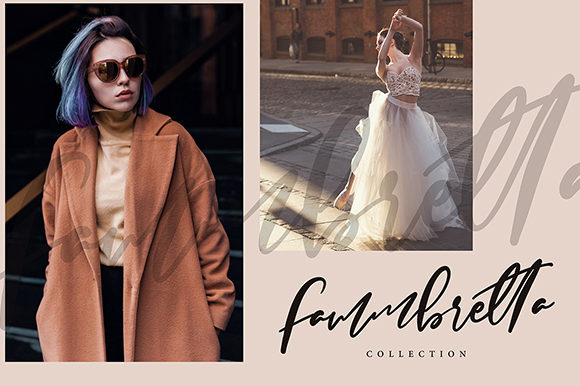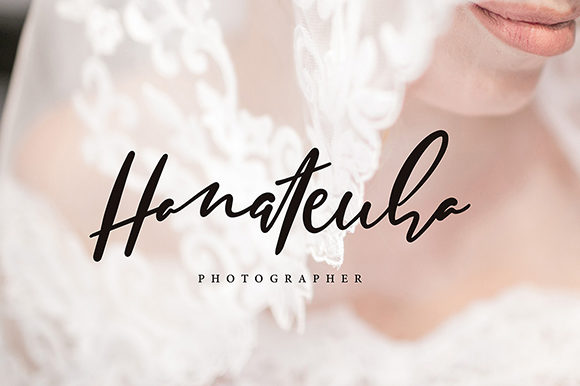
Danilla Jathorr Font
About Danilla Jathorr Font
Danilla Jathorr is a one-of-a-kind script font with an organic feel.It will turn any design idea into a stand out!